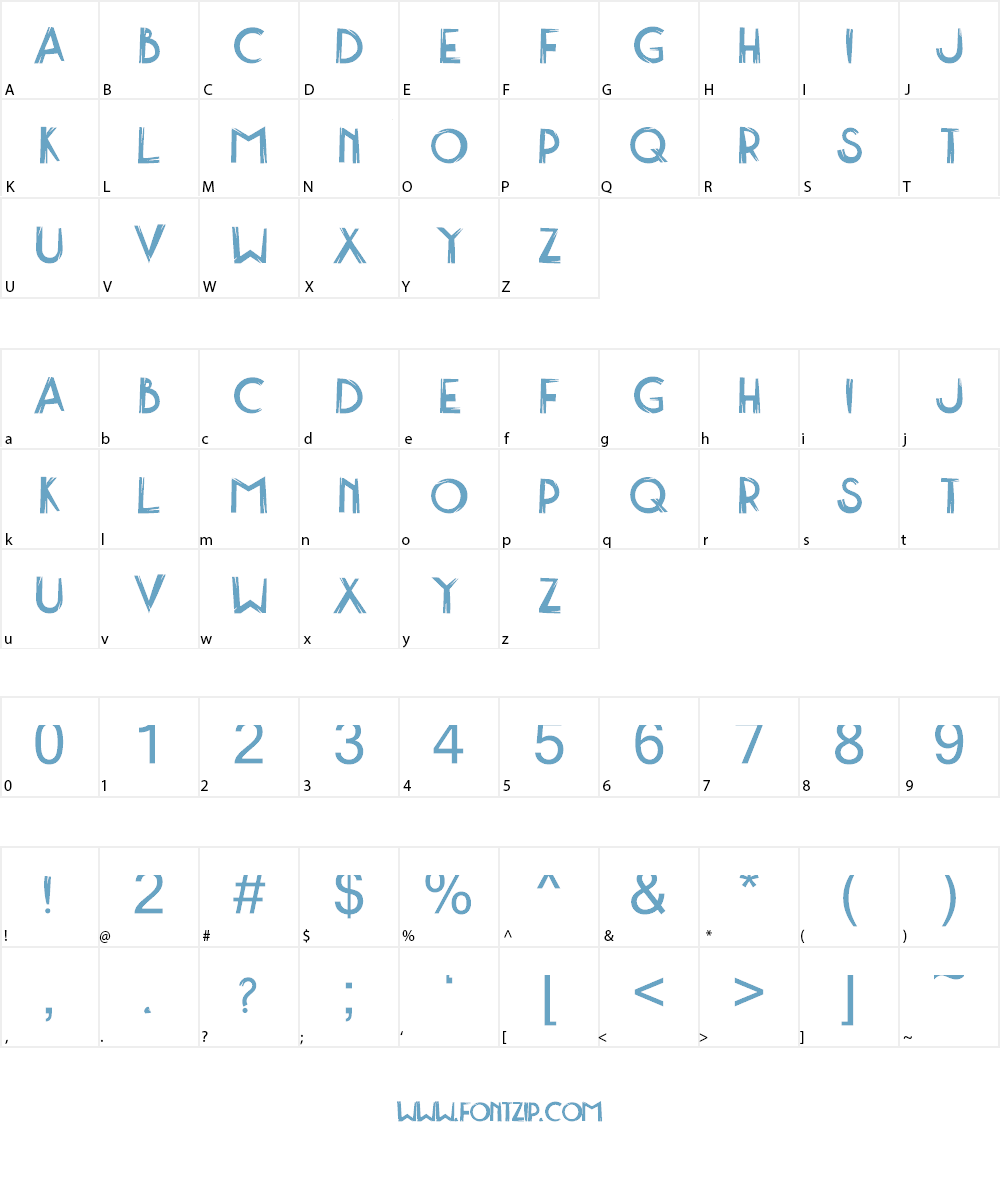
This is Handrawn Brush Font, Calligraphy style, Suitable for design, element design, wedding, event, t-shirt, logo, badges, sticker, and awesome work about summer.